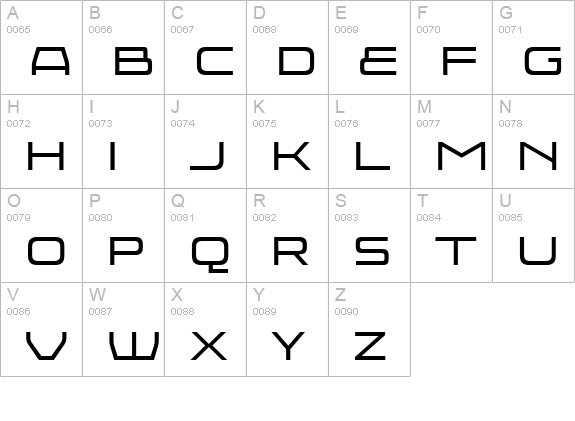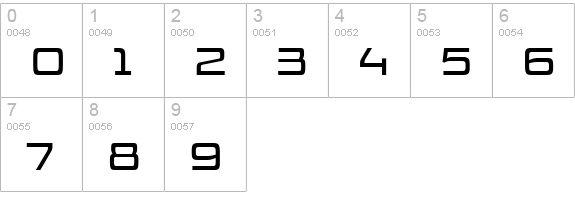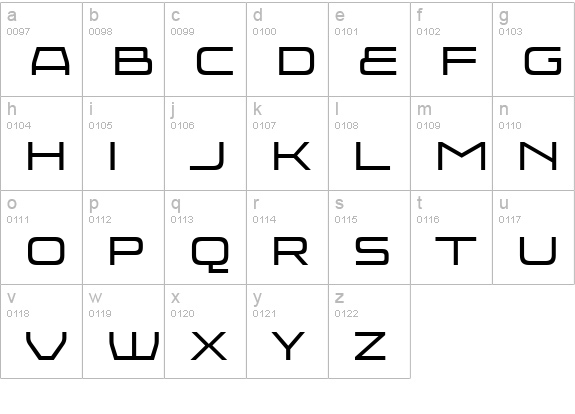
Injekuta Rg Font Details
Injekuta Rg font is a stunning display typeface that exudes modernity and sophistication. With its sharp angles and sleek lines, this font is perfect for creating eye-catching headings and titles that demand attention. The unique design of Injekuta Rg font sets it apart from other typefaces, making it a standout choice for any design project. Best of all, Injekuta Rg font is available for free download at FontsMarket.com. Whether you're a designer looking to add a fresh touch to your work or a content creator searching for a unique font to enhance your projects, Injekuta Rg font is sure to impress. Download this bold and stylish typeface today and elevate your designs to new heights.